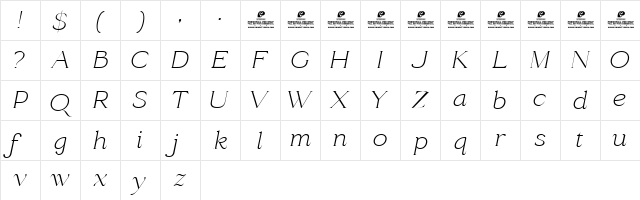
Radiant Charisma DEMO Light Italic Free Font
Radiant Charisma DEMO Light Italic
Designer: Prio Nurokhim Aji
Design Context for Radiant Charisma DEMO Light
Radiant Charisma DEMO Light is a composed and adaptable typeface that performs quietly and consistently across a wide range of design contexts. The slanted form adds forward momentum and visual energy. Its slender proportions lend an understated elegance to any composition.
Pro Tip: Use Radiant Charisma DEMO Light for emphasis, pull quotes, and subheadings where its slanted energy can add rhythm to the layout.